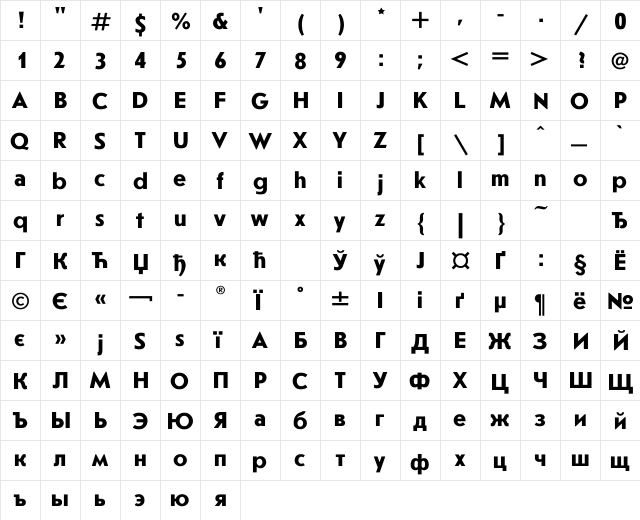
JournalSans Bold Font Preview
JournalSans Bold
JournalSans Bold Font Details
Design Context for JournalSans Typeface
JournalSans offers clean, dependable letterforms without strong stylistic allegiance, making it a practical choice for designers who need flexibility. The heavy weight commands attention and anchors typographic hierarchies.